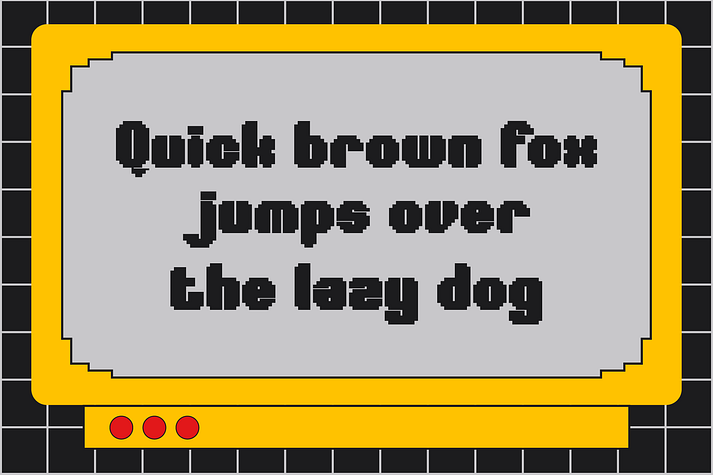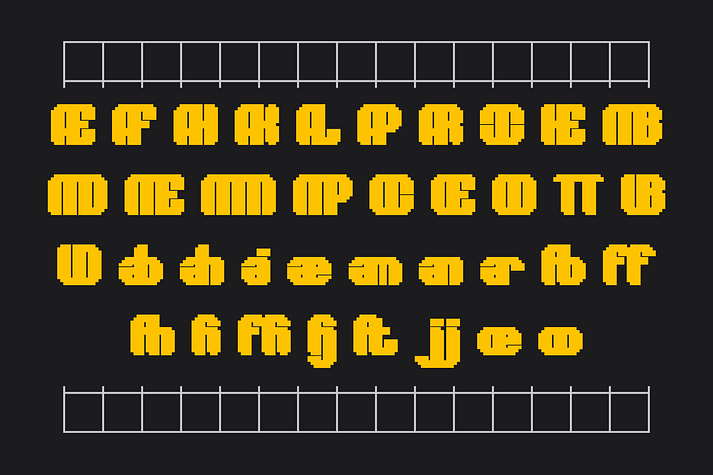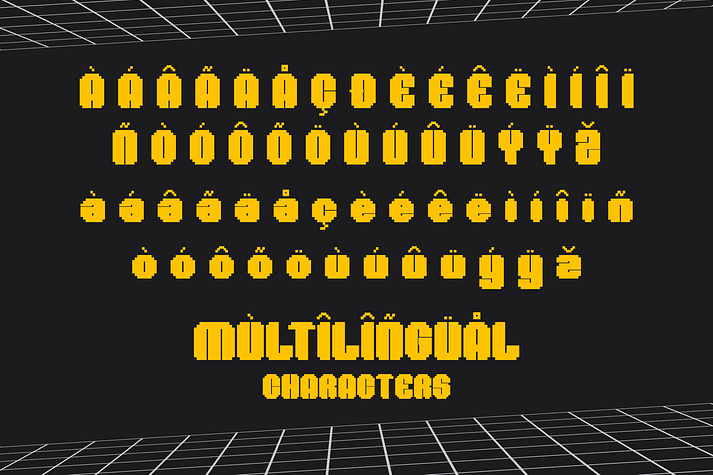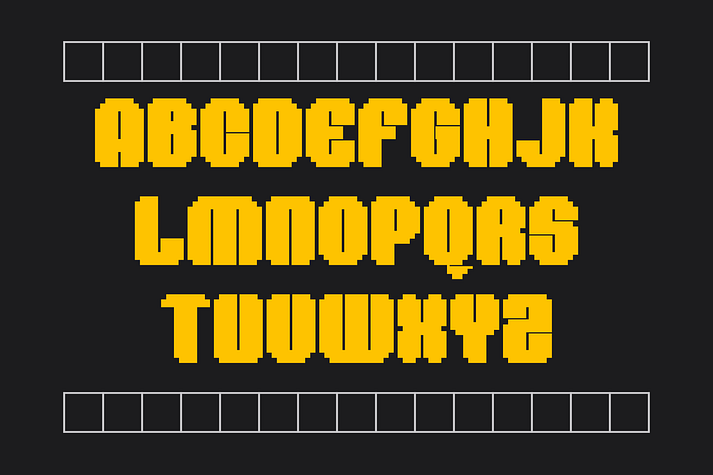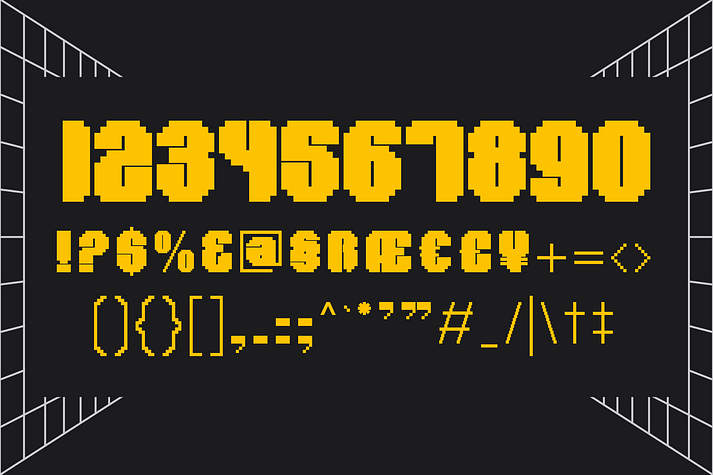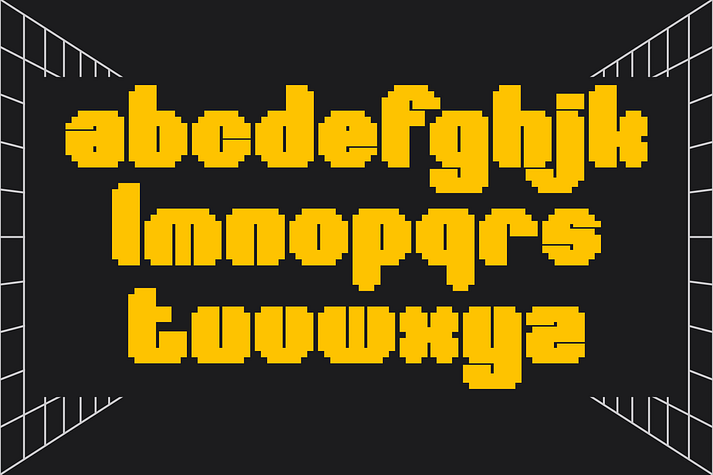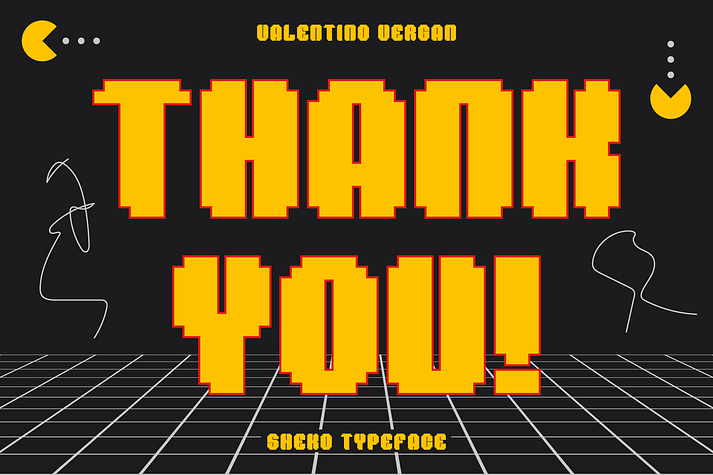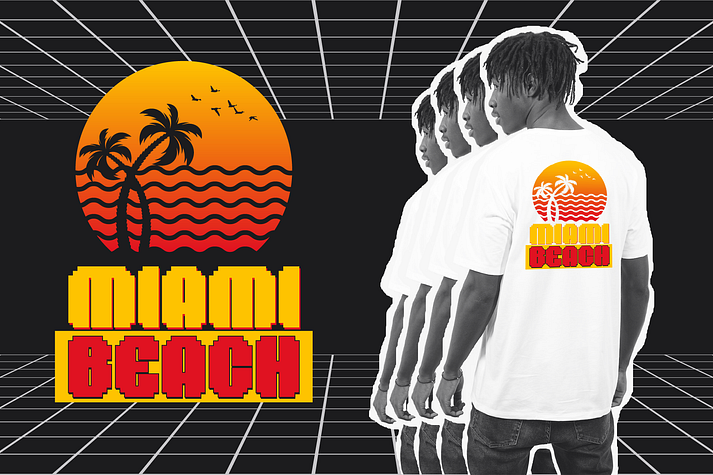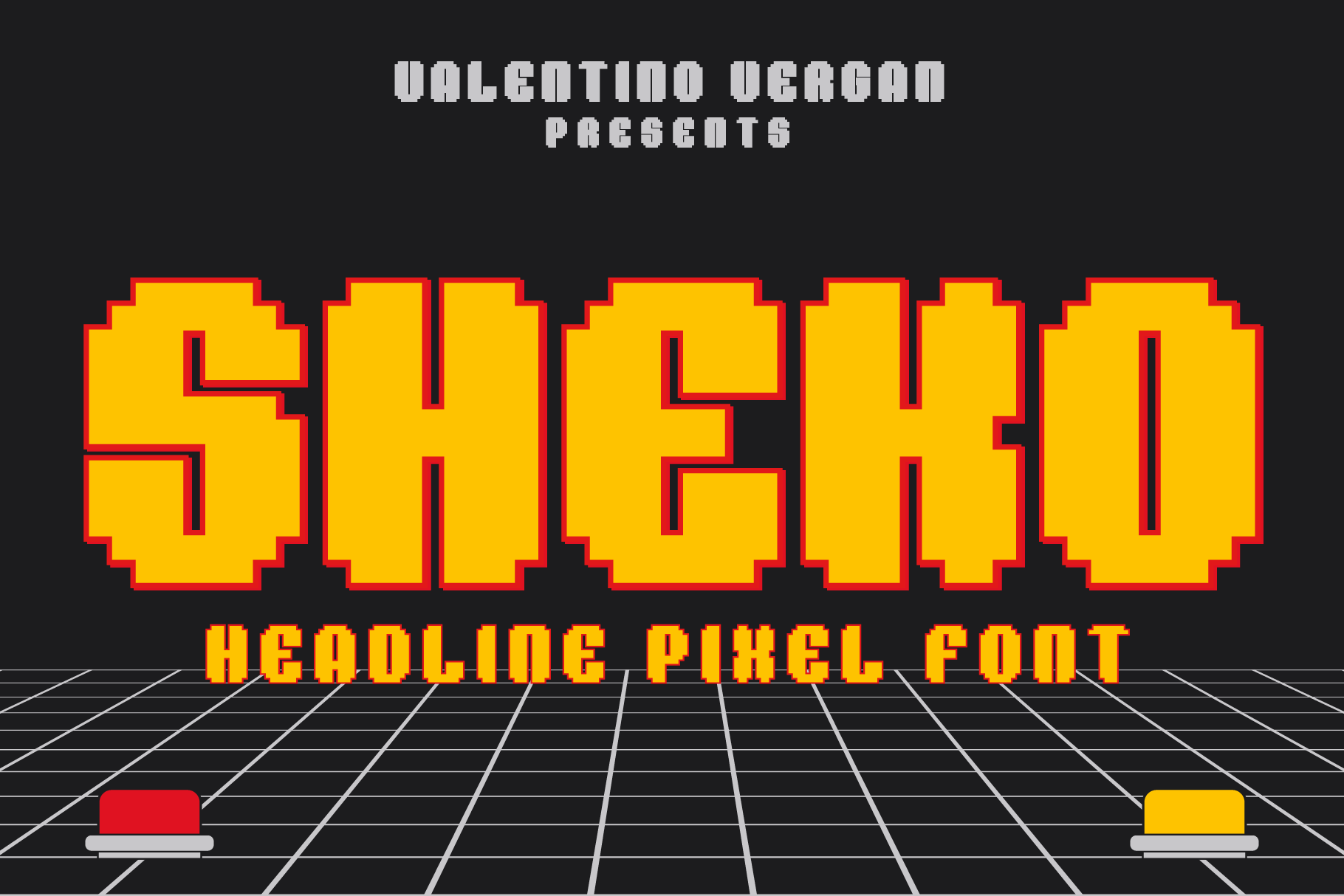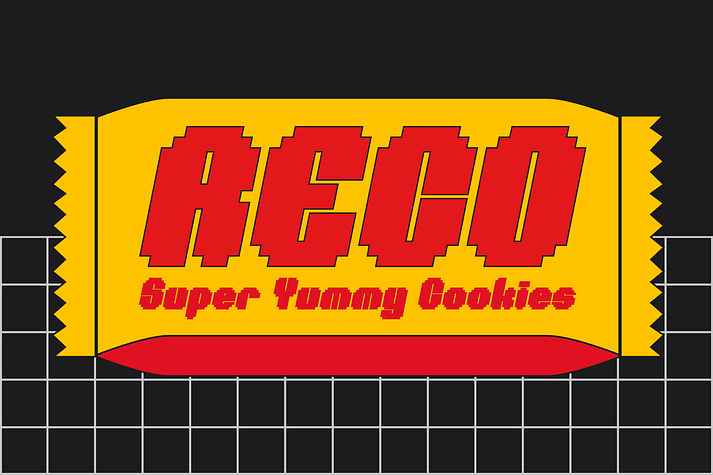
Sheko
Sheko is a display sans and sans serif font family. This typeface has two styles and was published by Valentino Vergan.
Sheko is a creative headline pixel font that looks great on any retro design. Sheko is designed to be very eye catching, it’s tight kerning and bold letters makes it great for bold headline vintage designs. You can use Sheko for a wide range of projects, including print and web.
If you are looking for something bold and retro for you next project, Sheko is the font for you.
Foundry Valentino Vergan